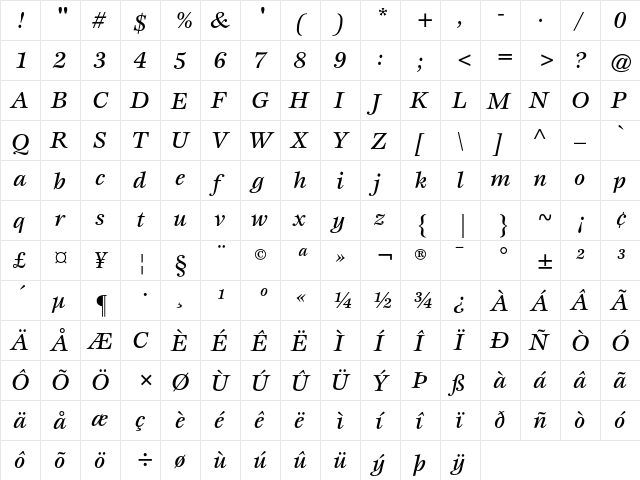
ITC Esprit Medium Italic
Design Context for ITC Esprit Typeface
ITC Esprit is a composed and adaptable typeface that performs quietly and consistently across a wide range of design contexts. The dynamic lean of this cut emphasises speed and emphasis in any layout.
Pro Tip: Try ITC Esprit for annotation and caption copy alongside an upright companion — the contrast in angle creates a dynamic but ordered typographic system.